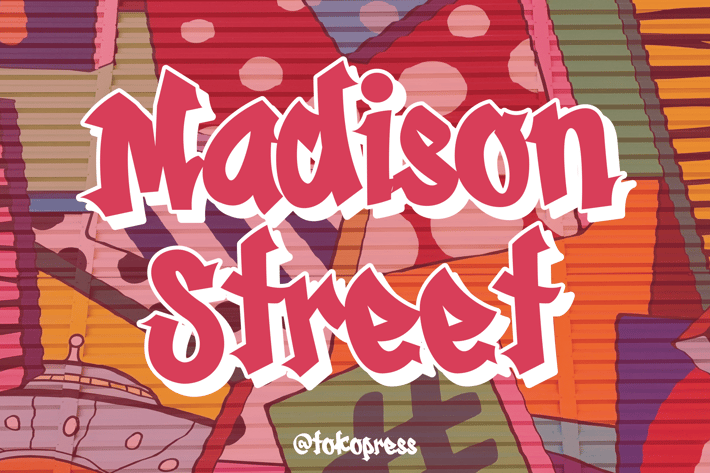
Madison Street - graffiti font
Madison Street- Graffiti Font
Graffiti display font with street-style energy, expressive attitude, and wild, uneven terminals.
Madison Street is a high-impact display font crafted with the pulse of urban youth culture. Its expressive curves and sharp spray-like terminals give it a raw, authentic graffiti vibe. The structure feels spontaneous and rebellious—perfect for edgy brands, skateboard packaging, and social content that needs to stand out. With a bouncy baseline and hand-tagged motion, Madison Street delivers a loud visual punch for projects that need to feel real, fast, and fresh.
Whether you're creating a poster for a music festival, branding a streetwear line, or designing digital graphics for a skatepark event or BMX YouTube channel, Madison Street adds urban edge and emotional grit. Its free-flowing motion and raw visual weight create an immersive visual voice that speaks directly to street-savvy audiences.
Key Features
Bold expression for urban and street design projects :
- Wild graffiti script with hand-tagged movement
- Rough edges and playful, unbalanced flow
- Highly legible in large sizes—ideal for headings and posters
- Perfect for YouTube thumbnails, music covers, event flyers, merchandise, and graffiti-style branding
- Basic latin A-Z and a-z, Numbers, Punctuation